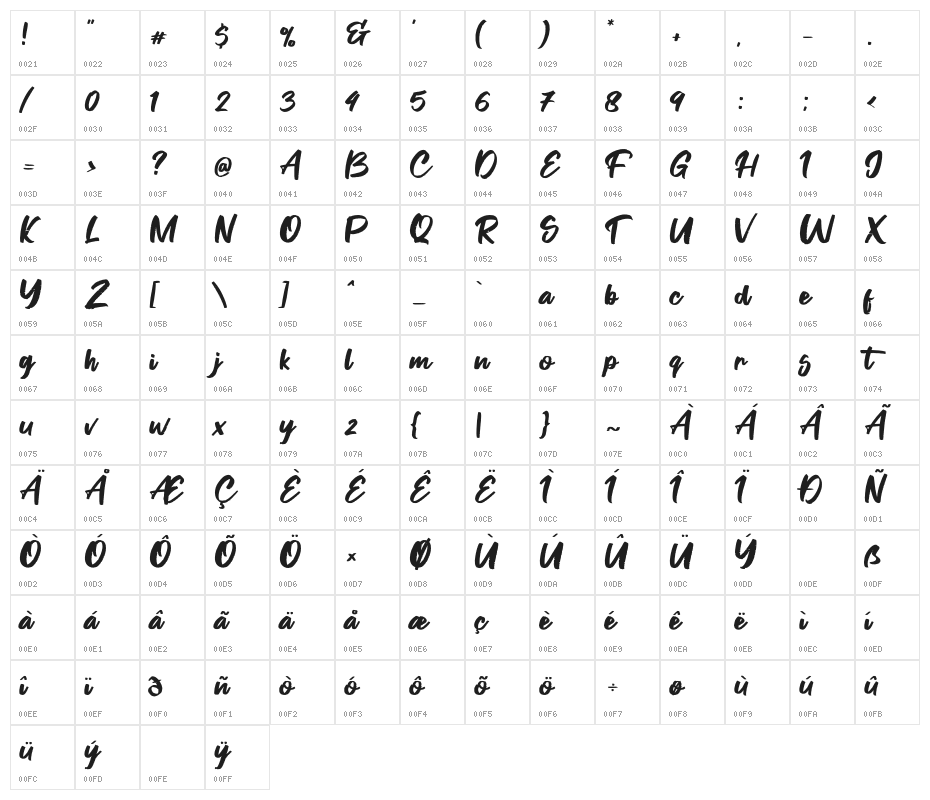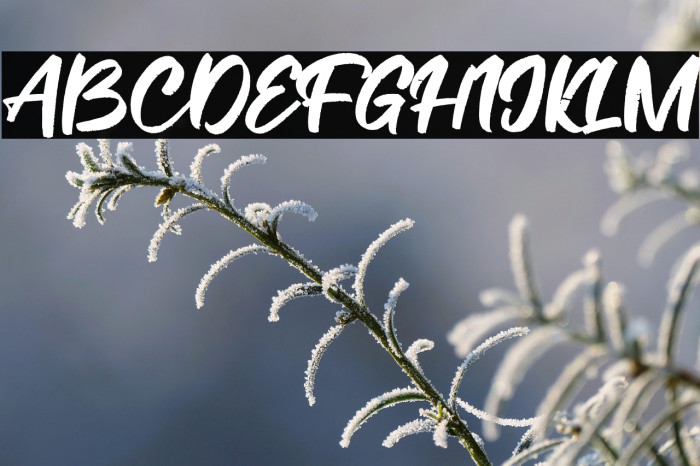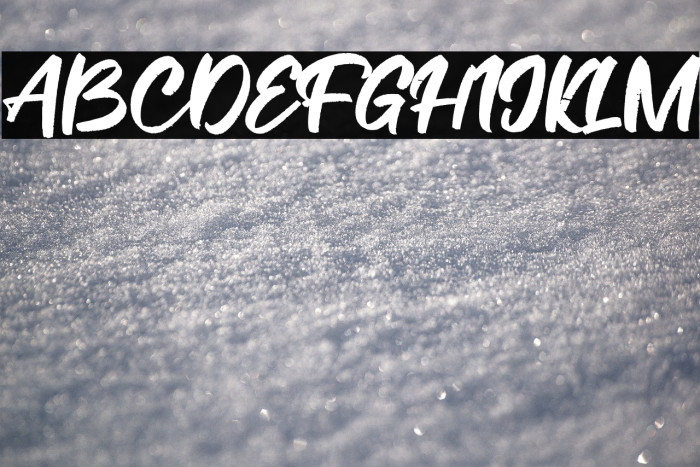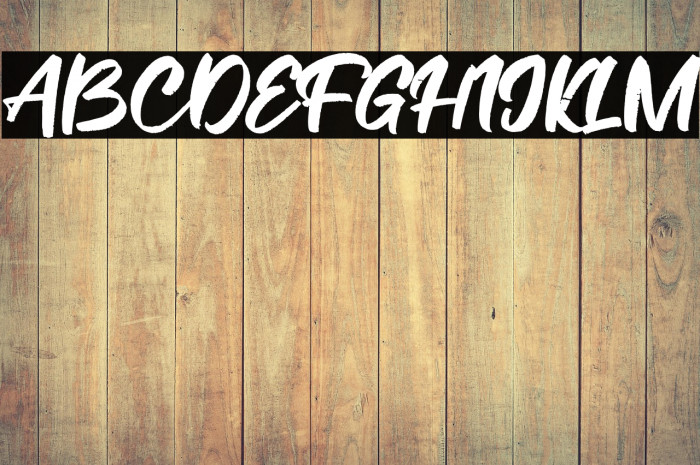
Fontgrab Font
Fontgrab Description
This font features a bold and expressive handwritten style, characterized by its fluid and dynamic strokes. The letters are crafted with a brush-like appearance, giving them a lively and energetic feel. The uppercase and lowercase letters maintain a consistent style, with a slight slant that adds to the informal and casual aesthetic. Numbers and special characters are designed to match the overall theme, ensuring a cohesive look across all text elements. The font's boldness and unique style make it stand out, perfect for projects that require a personal touch or a creative flair.